20 Elegant Wedding Fonts Collection 2026
As a designer, I carefully selected these 20 wedding fonts to capture the beauty of romance, elegance, and timeless style. Each font in this collection has its own unique personality — from delicate calligraphy to modern handwritten scripts — helping me create sophisticated invitations, luxury branding, logos, and unforgettable wedding designs. I wanted this bundle to inspire creativity and bring a refined, emotional touch to every project.
Angista Script Wedding Font
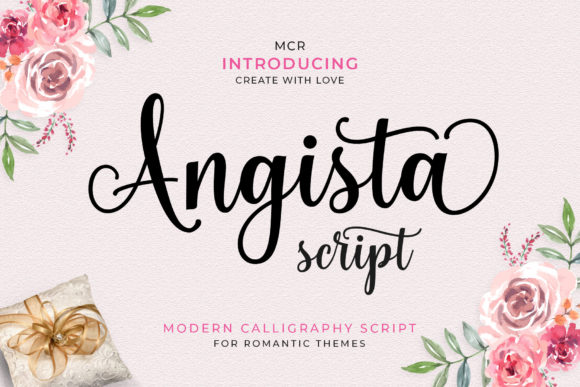
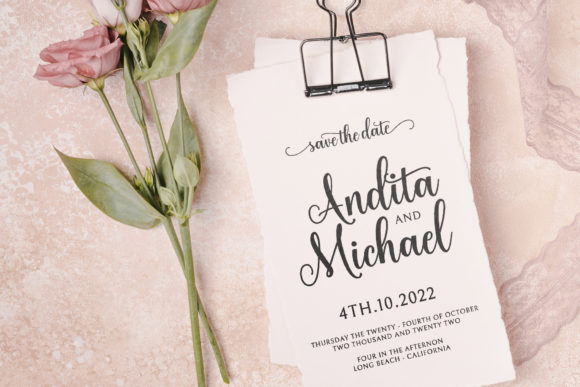
Angista Script is a delicate and elegant script font that instantly adds a luxurious handwritten touch to any design. I love using it for wedding invitations, feminine branding, logos, packaging, and social media graphics because its flowing lettering feels graceful and sophisticated. The stylish swashes and modern calligraphy style make every project look premium, creative, and beautifully refined.
Loving Wedding Font
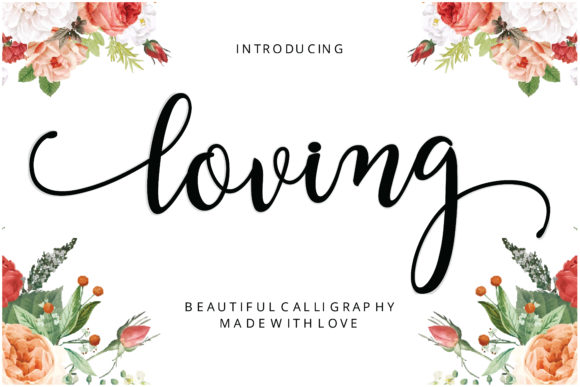
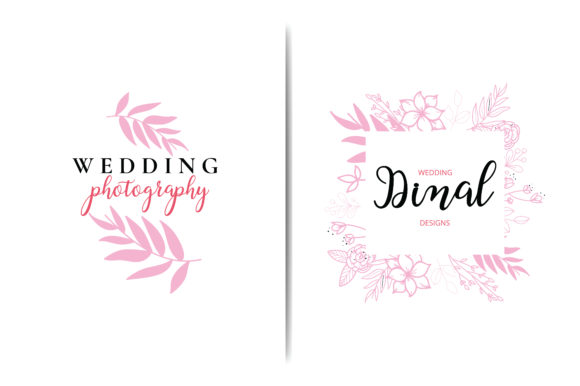
Loving is a beautiful script font that adds a soft and romantic feel to any creative project. I enjoy using it for wedding invitations, feminine branding, greeting cards, logos, and social media graphics because its playful handwritten style feels elegant and charming. The smooth flowing letters create a warm and stylish look that makes every design feel personal and visually captivating.
Heart Wedding Font
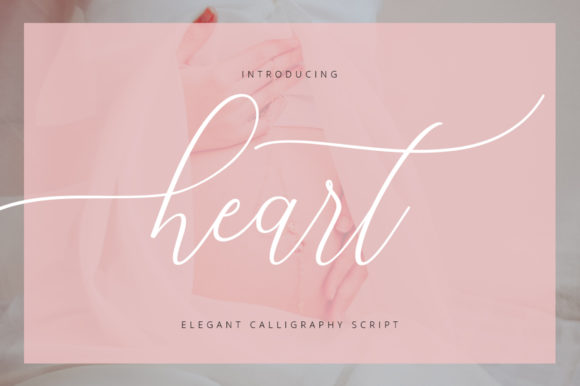
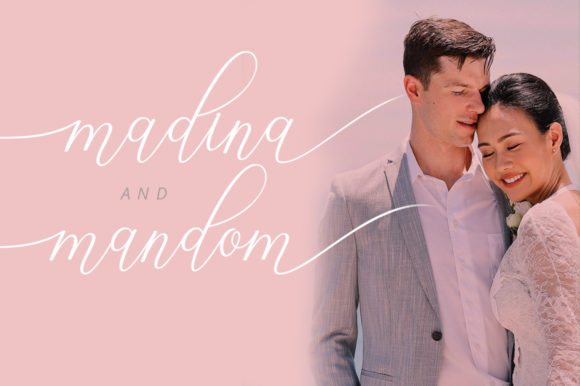
Heart is a sweet and stylish handwritten font that instantly adds charm and personality to any design. I love using it for wedding invitations, logos, branding, greeting cards, packaging, and social media graphics because its playful handwritten style feels modern and creative. The smooth lettering and artistic vibe make every project look elegant, warm, and visually unforgettable.
Beautiful Wedding Font
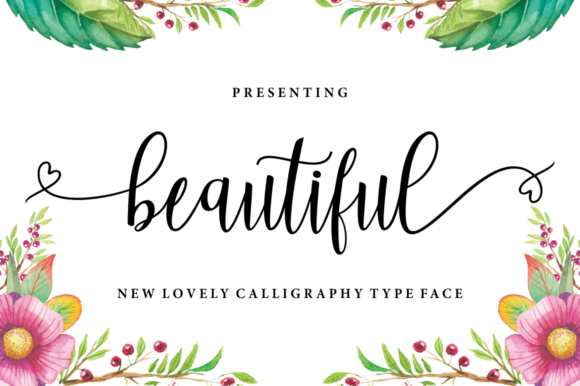
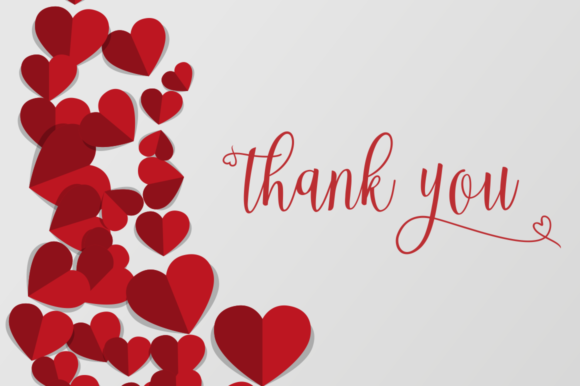
Beautiful is an elegant script font inspired by classic typography and timeless design. I enjoy using it for headlines, branding, logos, editorial layouts, invitations, and social media graphics because its stylish handwritten look feels both modern and sophisticated. The graceful lettering adds a luxurious and artistic touch that helps every creative project stand out beautifully.
Mylove Wedding Font
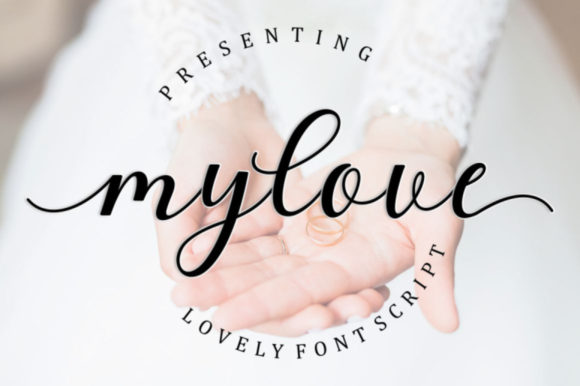
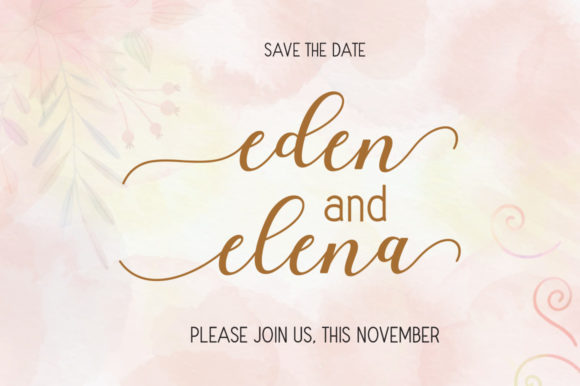
My Love is a flowing handwritten font that brings softness, romance, and elegance into any design. I love using it for wedding invitations, feminine branding, greeting cards, logos, and social media graphics because its delicate lettering feels graceful and timeless. The beautiful handwritten style and stylish swashes make every project look personal, sophisticated, and effortlessly charming.
Hello Honey Wedding Font
Hello Honey is a cute handwritten font that adds a sweet and romantic touch to any creative project. I enjoy using it for wedding invitations, greeting cards, stationery, branding, and social media graphics because its playful lettering and heart-shaped swashes feel charming and unique. The soft handwritten style makes every design look warm, elegant, and full of personality.
Maddison Wedding Font
Maddison is a romantic calligraphy font that adds elegance and charm to any creative project. I love using it for wedding invitations, feminine branding, logos, greeting cards, and social media graphics because its flowing handwritten style feels soft and sophisticated. The graceful swashes and natural lettering create a timeless look that makes every design feel personal and beautifully refined.
Gastonia Script Wedding Font
Gastonia is a luxurious modern calligraphy font that instantly brings elegance and sophistication into any design. I enjoy using it for wedding invitations, premium branding, editorial layouts, packaging, and logos because its flowing strokes and graceful curves feel timeless and refined. The romantic handwritten style adds a classy and artistic touch that makes every project look polished and unforgettable.
Alignment Wedding Font
Alignment is a modern calligraphy script font that combines elegance, luxury, and beautiful handwritten detail. I love using it for branding, wedding invitations, logos, luxury packaging, beauty projects, and social media graphics because its flowing strokes feel sophisticated and stylish. The graceful swashes and clean lettering create a refined look that makes every design feel modern, feminine, and professionally crafted.
Overthinking Wedding Font
Overthinking is a delicate handwritten font that instantly adds elegance and personality to any design. I enjoy using it for branding, wedding invitations, logos, packaging, and social media graphics because its balanced handwritten lettering feels modern and refined. The smooth curves and versatile style create a sophisticated look that makes every project feel creative, stylish, and beautifully crafted.
Cottage Wedding Font
The Cottage is a simple and classy font. It has an elegant and classy style which makes it perfect for luxurious designs. It’s the right choice for watermarks on photography, signatures or signature logo designs, quotes, album covers, business cards, and many other design projects. From business cards to photo watermarks, Cottages is here to increase your work to the highest level.